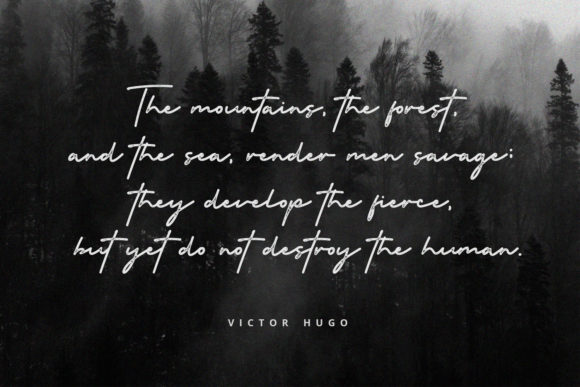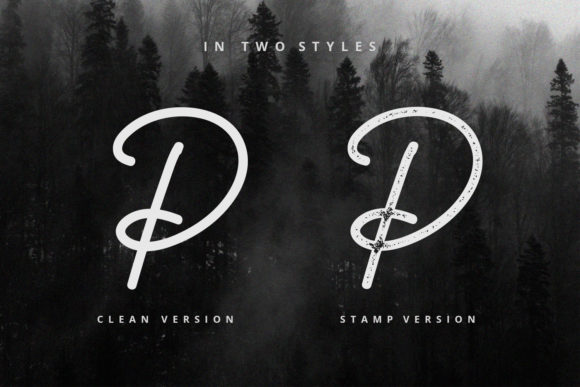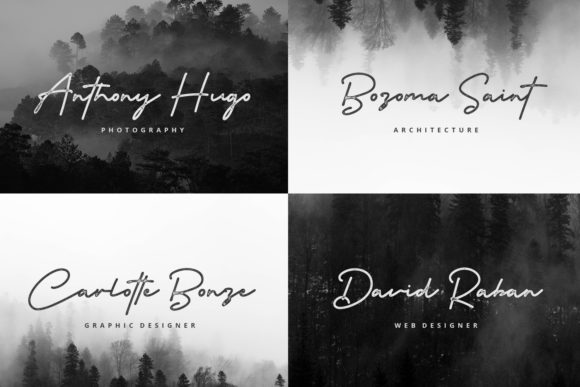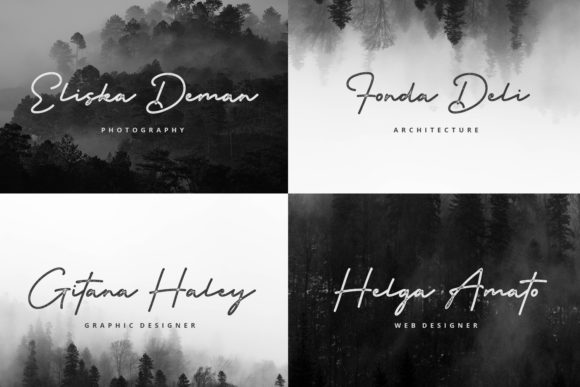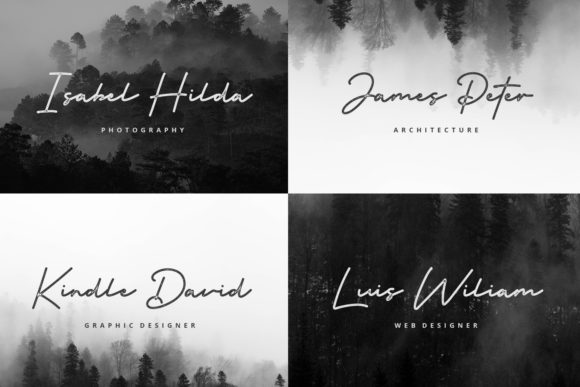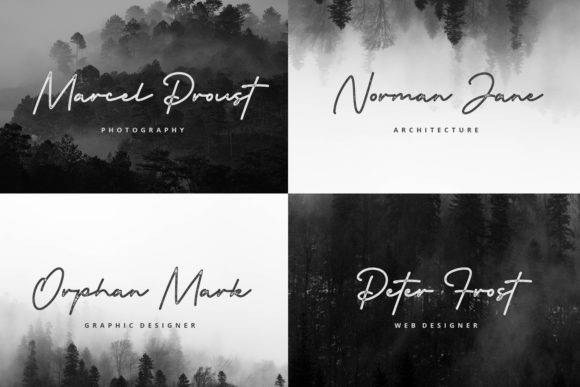
Introducing Carstenz Font: Elevate Your Designs with a Touch of Vintage Elegance
In the world of design, fonts play a crucial role in bringing a creative vision to life. For those seeking a modern script that exudes vintage charm, look no further than the Carstenz Font. This versatile and stylish font is perfect for designers and crafters aiming to add a sophisticated touch to their work. Whether you’re designing business cards, homepages, portfolios, invitations, or branding materials, Carstenz Font is an excellent choice.
What Makes Carstenz Font Stand Out?
Carstenz Font is a modern script that beautifully blends contemporary flair with vintage aesthetics. Its unique charm lies in its ability to evoke a sense of nostalgia while remaining fresh and modern. The font comes in two distinct styles: regular and stamp. This versatility allows designers to experiment with different looks and feels, ensuring their work stands out in a crowded creative landscape.
Key Features of Carstenz Font
- Modern Script Style: Carstenz Font boasts a modern script style that is both elegant and versatile. Its fluid lines and graceful curves make it perfect for a wide range of design projects.
- Regular and Stamp Styles: The font is available in two styles: regular and stamp. The regular style offers a smooth, flowing script, while the stamp style provides a more rugged, vintage look.
- Vintage Aesthetic: With its vintage-inspired design, Carstenz Font is ideal for projects that require a touch of nostalgia. From wedding invitations to branding materials, this font adds a classy, sophisticated feel to any design.
Use Cases for Carstenz Font
Carstenz Font’s versatility makes it suitable for a wide range of design projects. Here are some of the best use cases for this beautiful font:
- Business Cards: Make a lasting impression with business cards that feature the elegant Carstenz Font. Its professional yet stylish appearance ensures you stand out in any industry.
- Homepages and Websites: Add a touch of sophistication to your website’s design with Carstenz Font. Its modern script style works well for headers, titles, and other key elements.
- Portfolios: Showcase your work in style with Carstenz Font. Its vintage aesthetic adds a creative flair to portfolios, helping you present your projects in a unique and captivating way.
- Invitations: Whether it’s a wedding, birthday, or corporate event, Carstenz Font is perfect for creating beautiful, eye-catching invitations. Its elegant design sets the tone for a memorable occasion.
- Branding and Packaging: Elevate your brand with Carstenz Font. Use it on product labels, packaging, and marketing materials to create a cohesive and stylish brand identity.
Tips for Using Carstenz Font Effectively
To get the most out of Carstenz Font, consider the following tips:
- Mix and Match Styles: Experiment with both the regular and stamp styles to create visual interest. For example, use the regular style for main text and the stamp style for headings or accents.
- Pair with Complementary Fonts: Combine Carstenz Font with other fonts that complement its vintage aesthetic. Serif fonts or simple sans-serifs work well for creating a balanced design.
- Adjust Size and Color: Play with the size and color of Carstenz Font to emphasize key elements in your design. A larger size can make a bold statement, while a smaller size can add subtle elegance.
Carstenz Font is a powerful tool for designers and crafters looking to add a touch of vintage elegance to their work. With its modern script style, regular and stamp variations, and ease of use, it’s an excellent choice for a wide range of design projects. From business cards to branding materials, Carstenz Font helps you create visually stunning and memorable designs. Explore the possibilities of Carstenz Font today and elevate your designs to new heights.